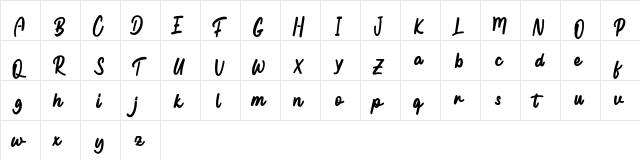
Facibian FREE Regular
Design Context for Facibian FREE Typeface
Facibian FREE is a composed and adaptable typeface that performs quietly and consistently across a wide range of design contexts.